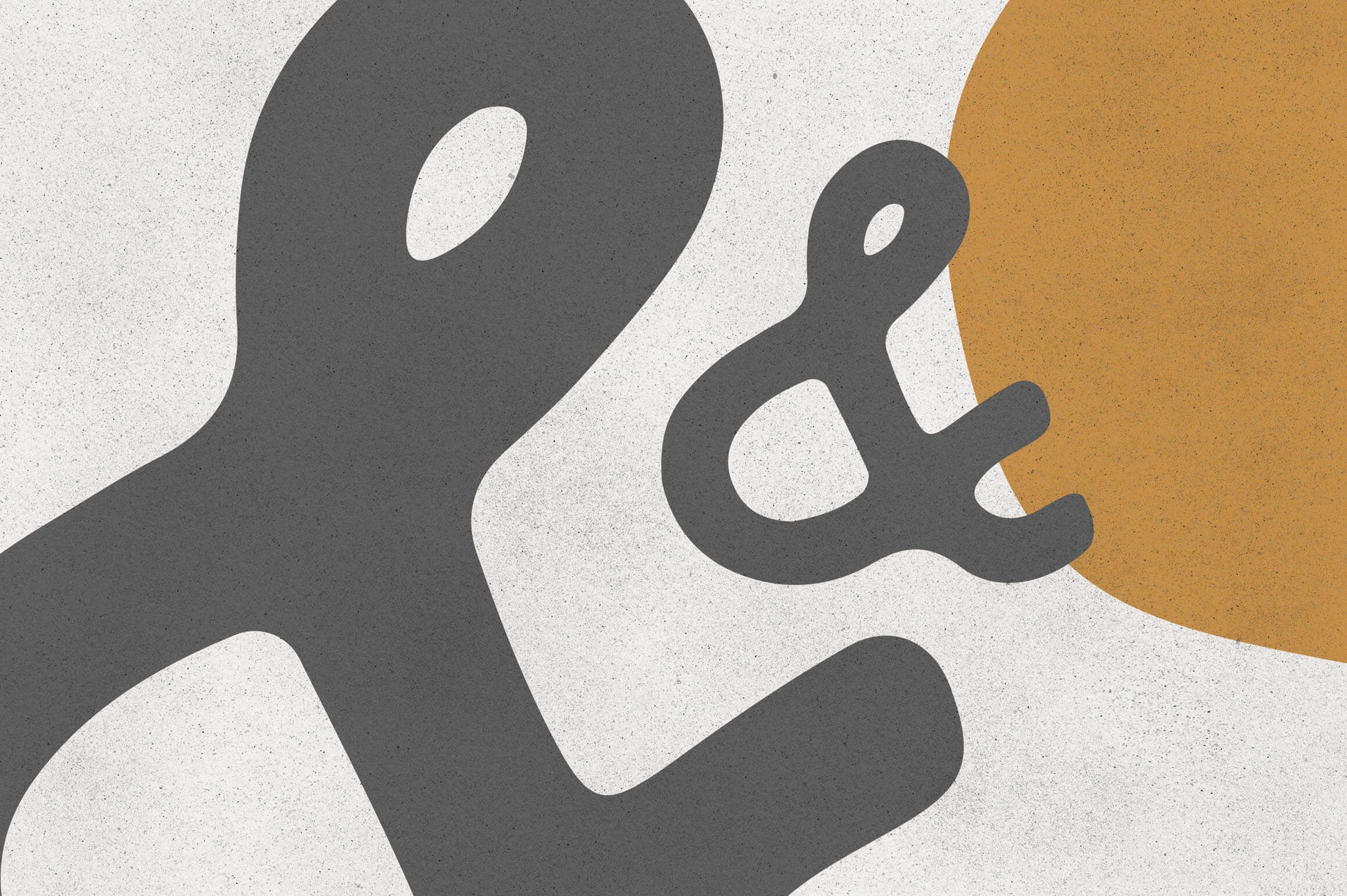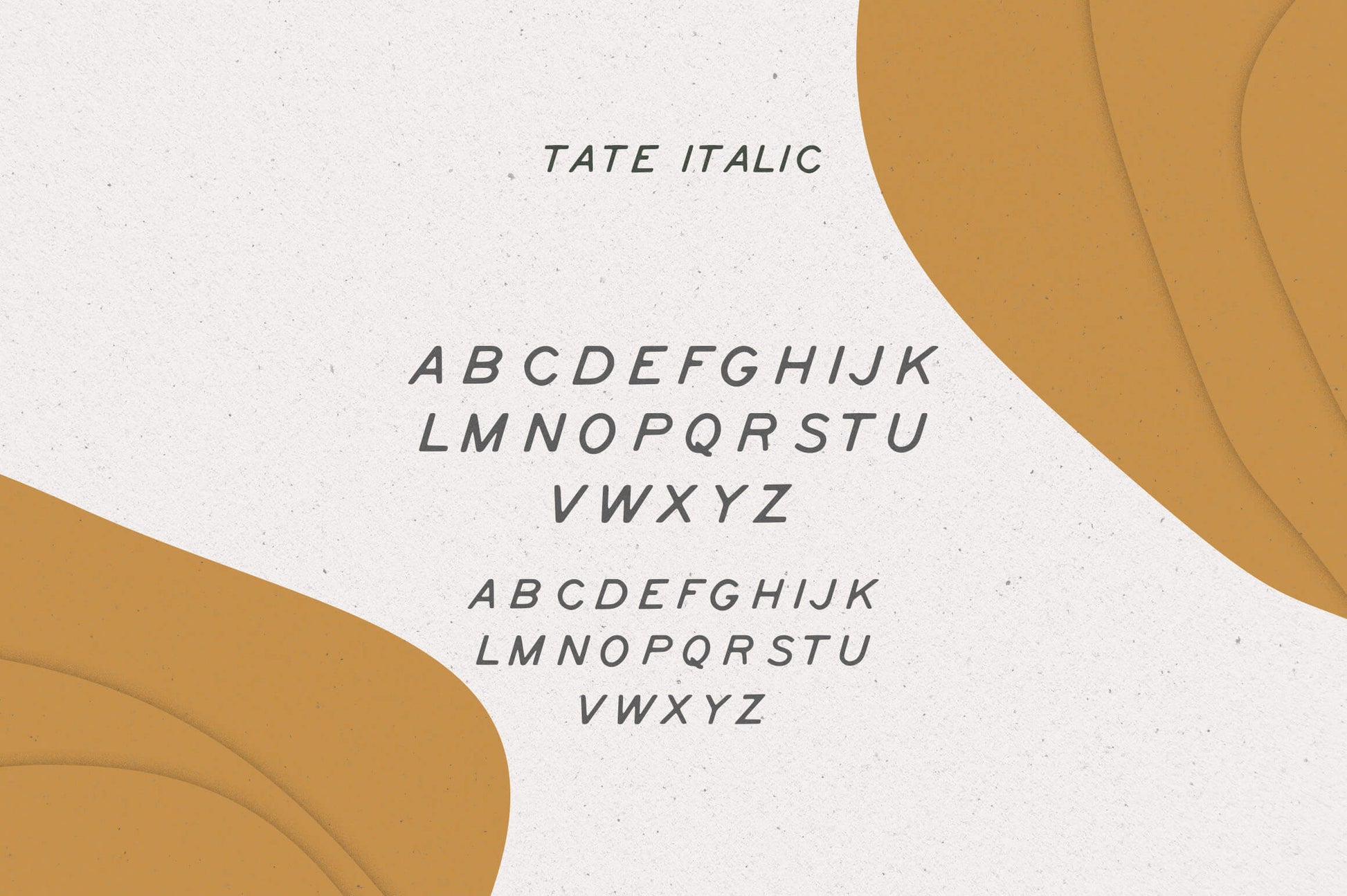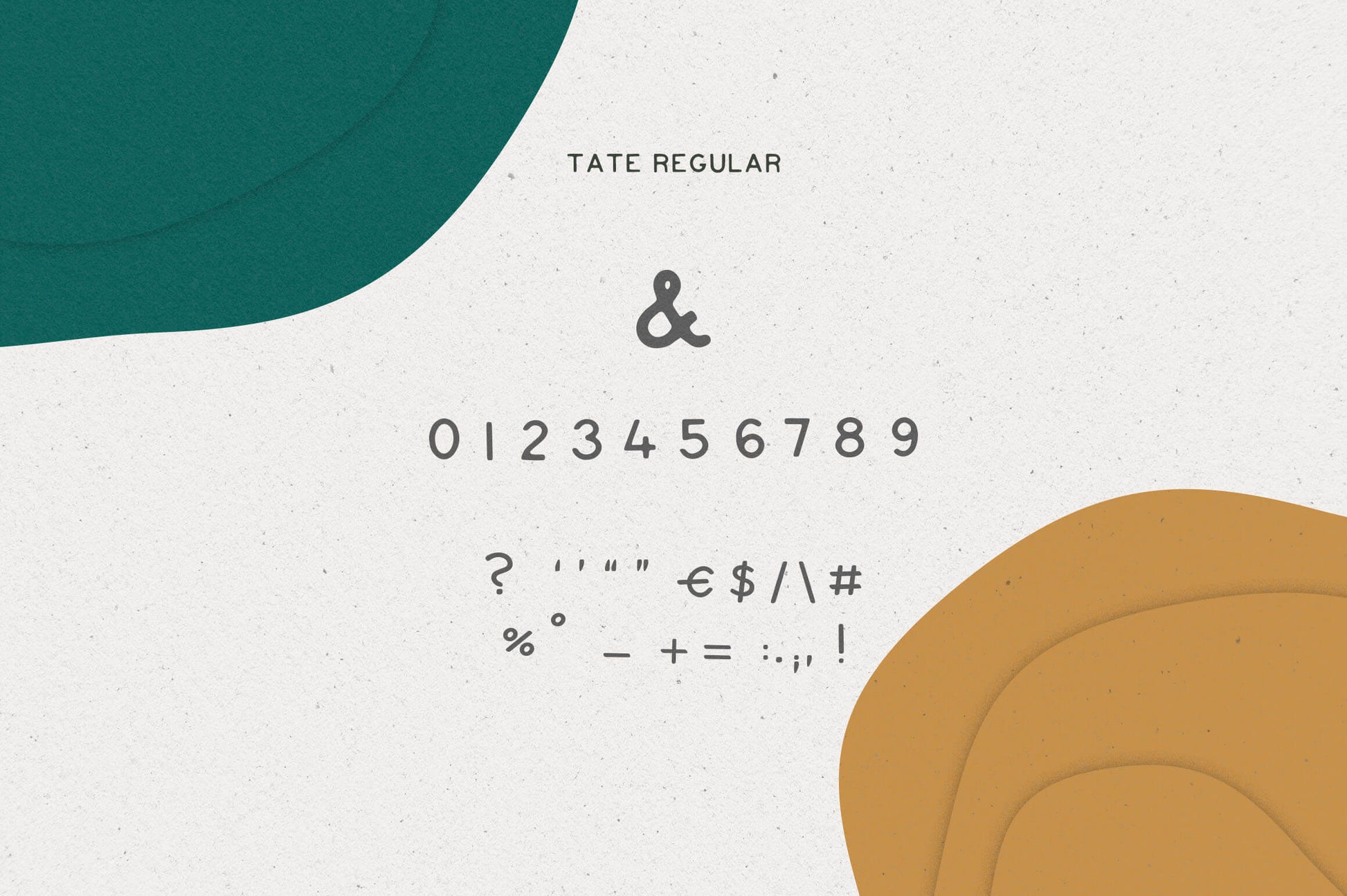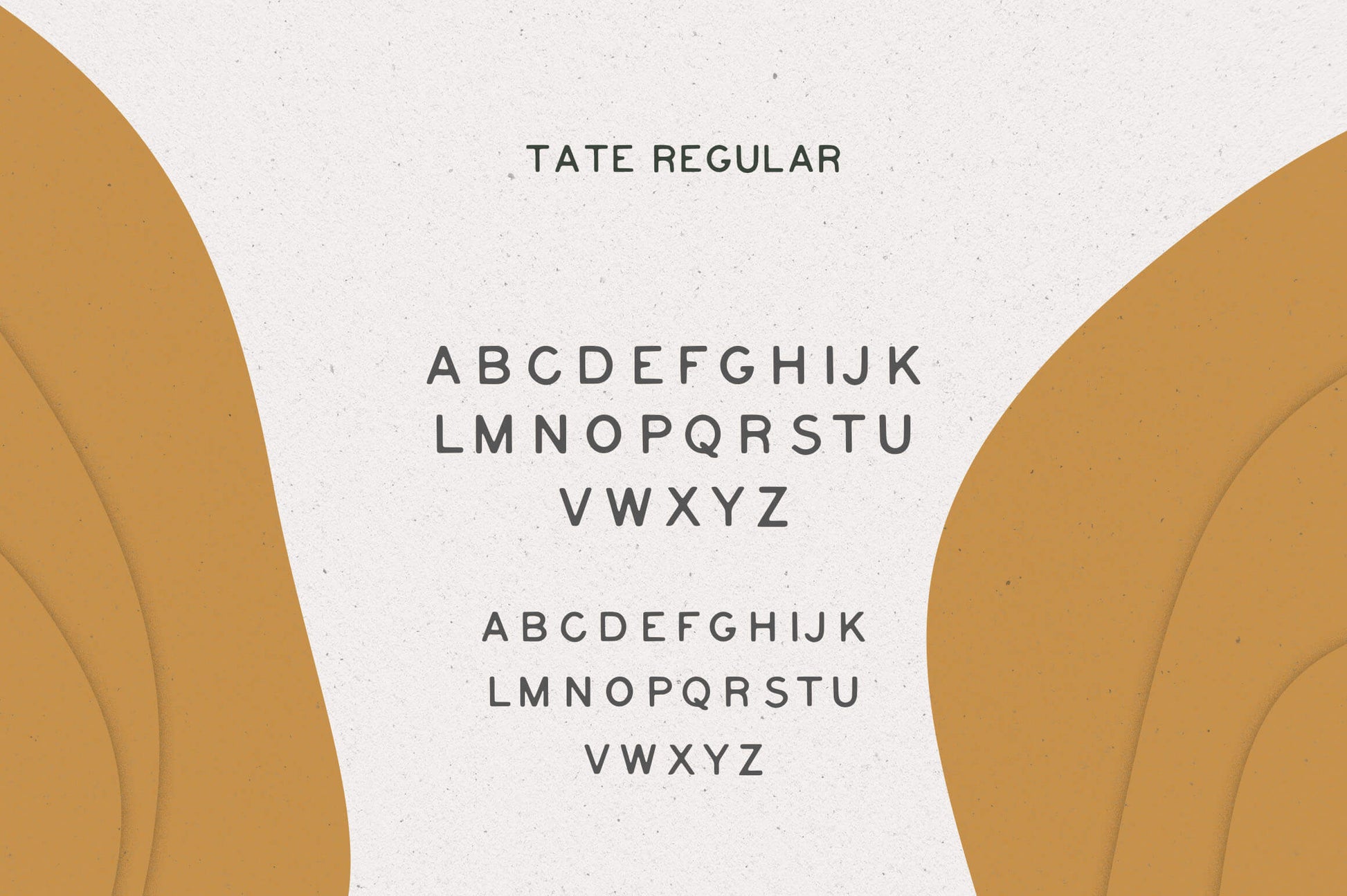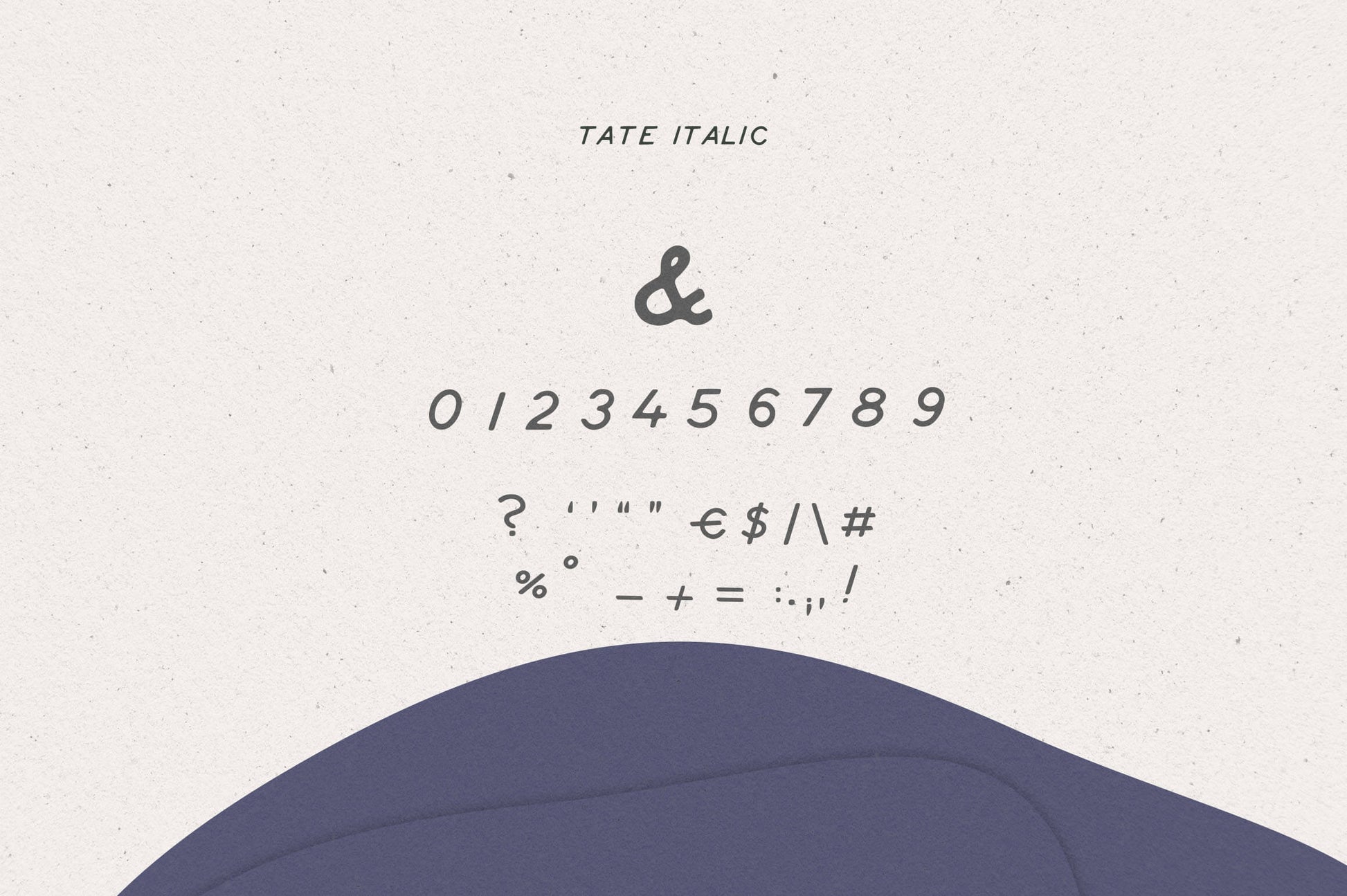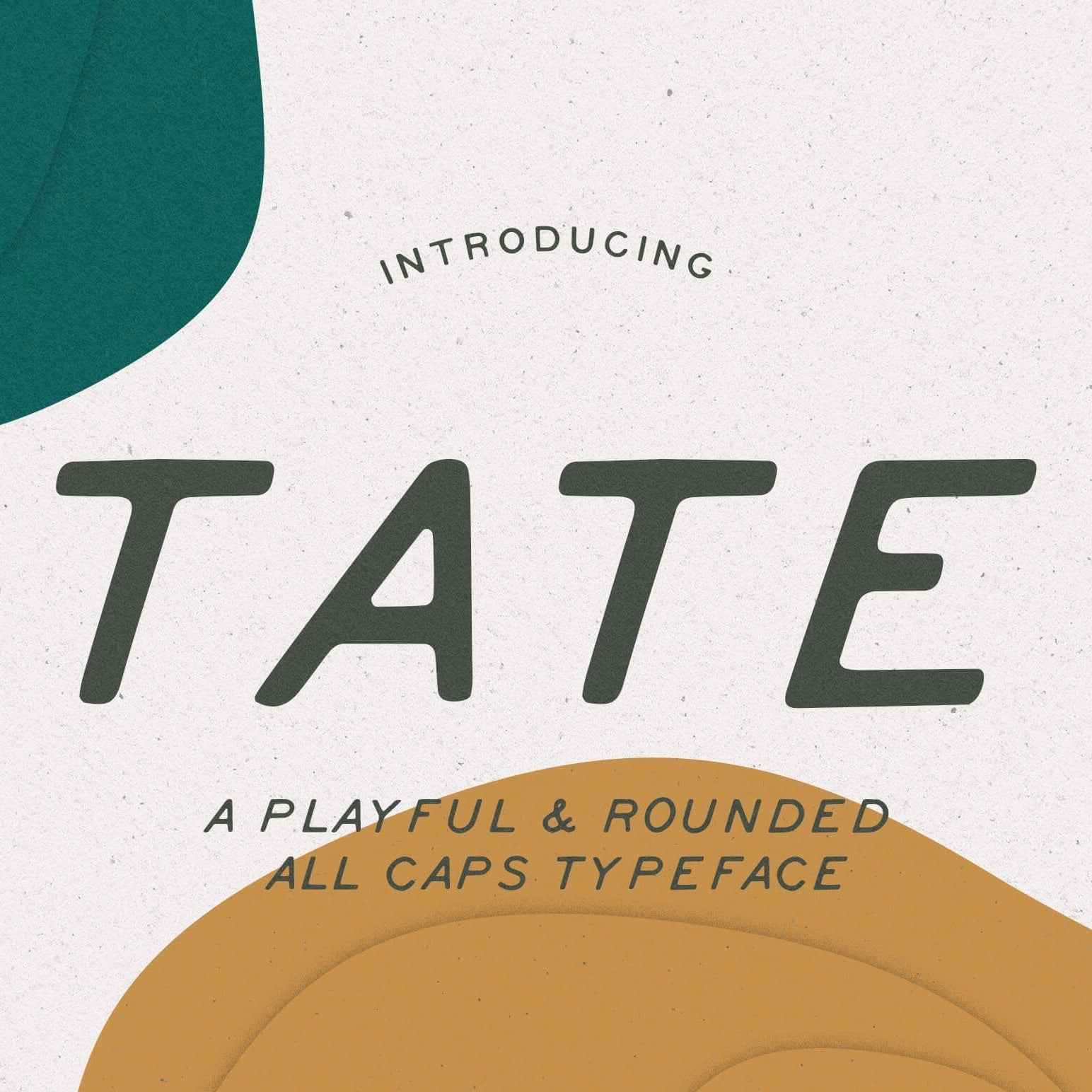
Now Tate font includes new special characters with accents Å Ø Ä Ö Á É Í Ó Ú Ü Ñ Ą Ć Ę Ł Ń Ó Ś Ź Ż À È Ì Ò Ù in both versions Regular and Italic.
Introducing Tate, a playful and rounded all-caps typeface that will add a fun touch to any design project. With its hand-drawn feel, Tate is the perfect choice for those looking to infuse their work with a touch of whimsy and character.
Featuring uppercases, numbers, and a basic set of punctuation, Tate is versatile enough to use in a range of design projects. Use it in logo design, branding, and labels to create a unique and eye-catching look that will set your work apart.
With its playful and friendly vibe, Tate is perfect for digital products and websites. Whether you're designing an app or creating a website, Tate will add a touch of personality and charm that will delight your audience and make your work truly memorable. Get your hands on Tate today and bring a smile to your design projects with its playful and inviting style.